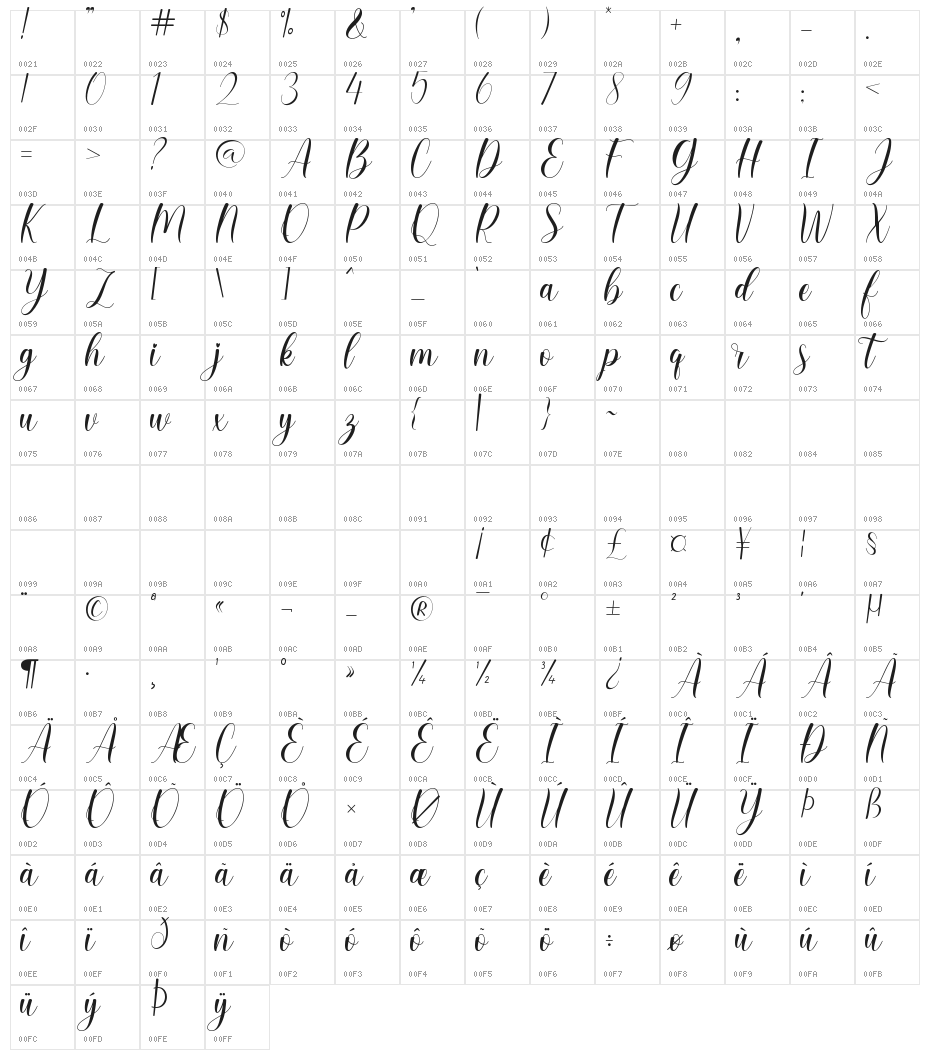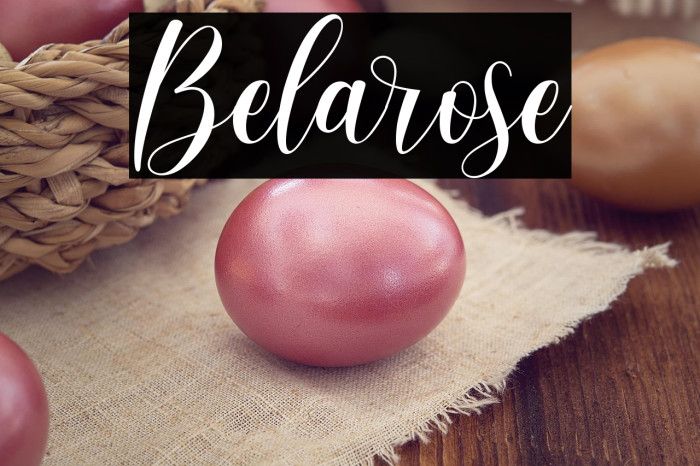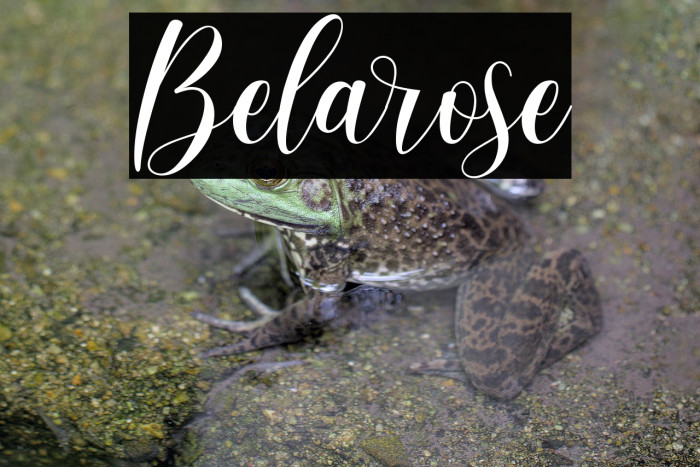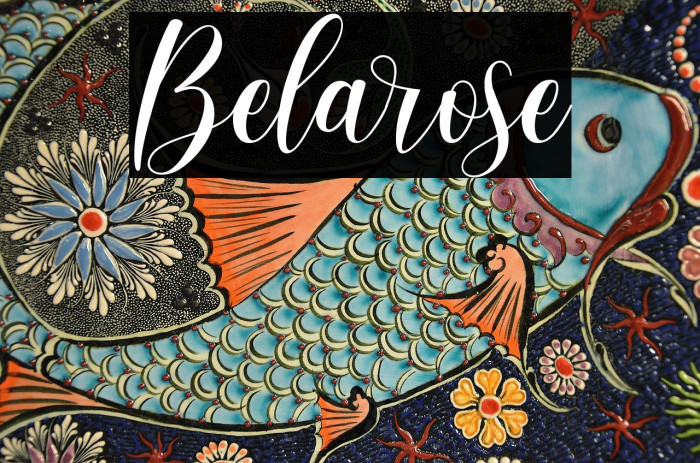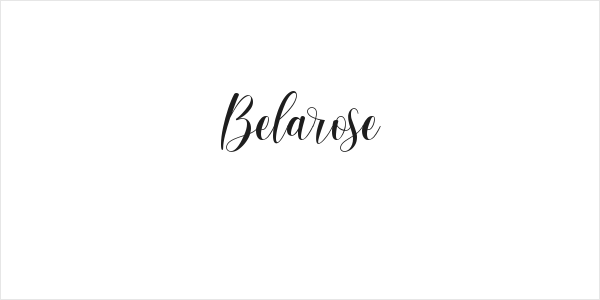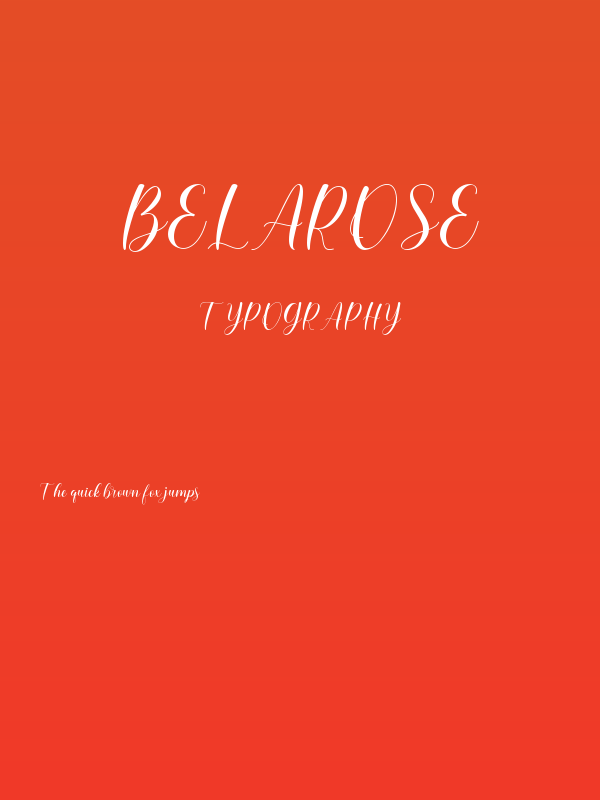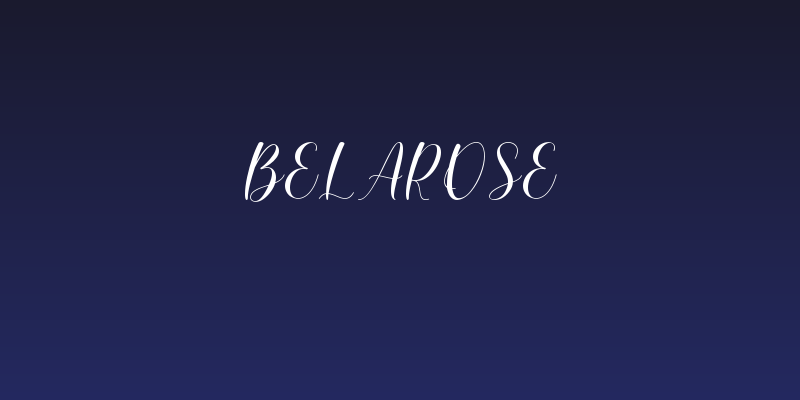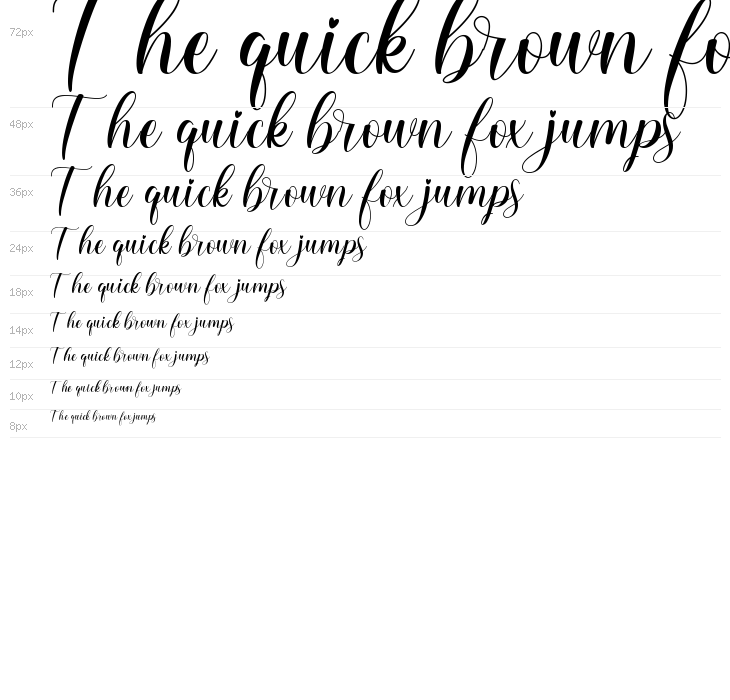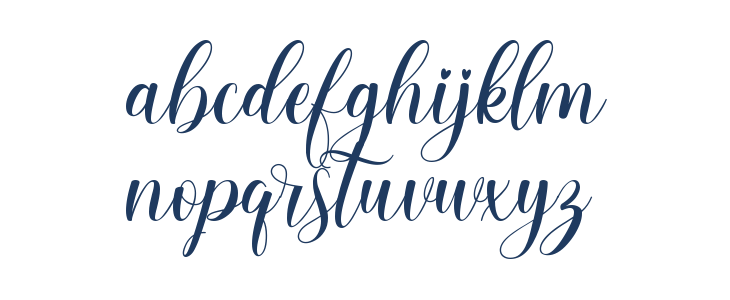
Belarose Font
Belarose Description
This elegant script font features a flowing, cursive style with a modern twist. The characters are gracefully connected, creating a sense of fluidity and movement. The uppercase letters are tall and slender, while the lowercase letters maintain a consistent height, enhancing readability. The font exhibits a high contrast between thick and thin strokes, adding to its sophisticated appearance. The numerals and special characters are designed to complement the overall style, making it versatile for various applications. The font's delicate curves and loops give it a romantic and artistic feel, perfect for projects that require a touch of elegance.
| Proposed Projects | Ideal for wedding invitations, branding, greeting cards, and elegant packaging designs. |